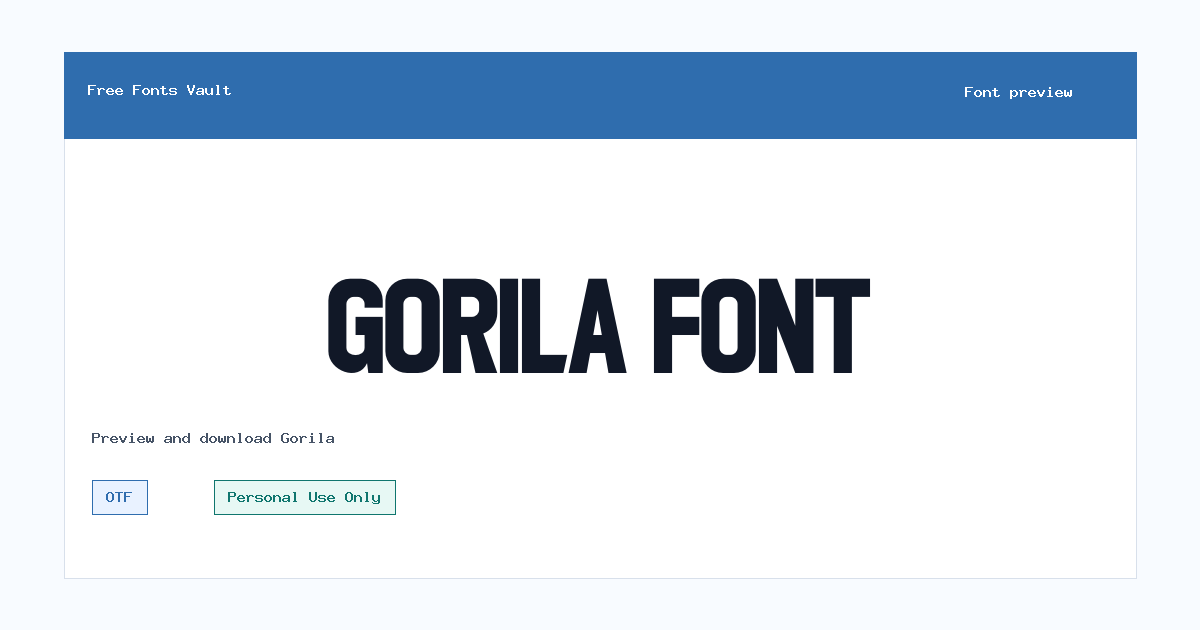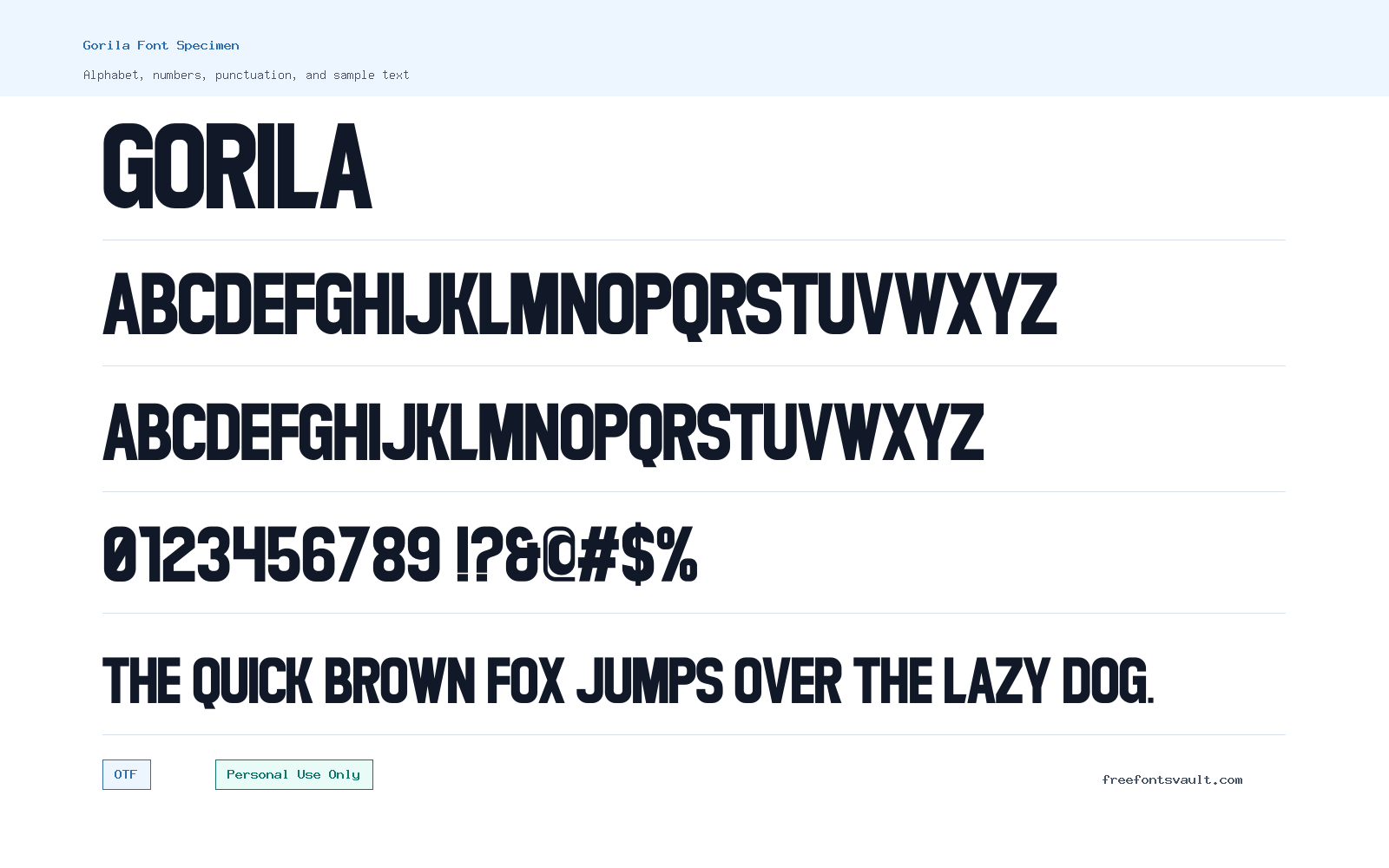
Gorila
- Designer Lovian JK
- Foundry Funtype Co.
Gorila is a sans serif font family with a regular OTF style for personal-use projects. It is a practical choice to preview when you need clean display text for headings, short labels, or visual mockups.
Gorila works best when you test it as a display face rather than as a long-reading text font. The available regular style gives you a straightforward starting point for titles, poster words, social graphics, banners, and other places where a single weight can carry the design. Because there is only one listed style, the preview box is especially useful: try uppercase and lowercase words, short brand-style names, numbers, and punctuation before downloading.
For best results, keep your sample text close to the way you plan to use the font. If you want it for a logo draft, test one or two words at a large size. If you want it for a flyer or web graphic, preview it beside a simple body font and check spacing at the size you will actually export. Avoid relying on Gorila for long paragraphs unless your own testing shows it remains comfortable to read. A single regular weight can look good in short text, but it may not give enough hierarchy for larger layouts without help from size, color, or a paired typeface.
- Sans serif family listed for personal-use projects
- Headlines, posters, banners, and short display text
- Personal mockups, social graphics, and design experiments
Gorila is credited to Lovian JK, with Funtype Co. listed as the foundry.
What is Gorila best used for?
Gorila is best tested for short text such as headings, poster titles, labels, social media graphics, and personal design mockups. Use the preview to judge whether it fits your specific layout.
Who designed Gorila?
The font data credits Lovian JK as the designer and Funtype Co. as the foundry.